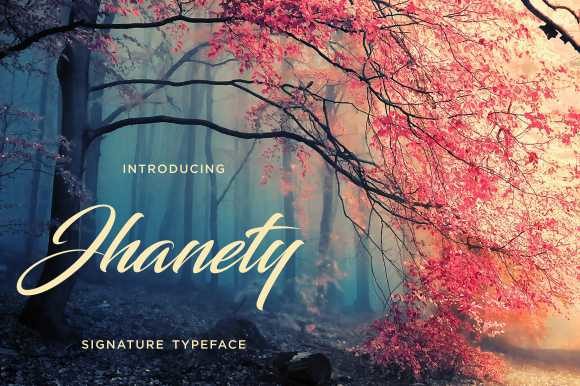
Jhanety Font
About Jhanety Font
The Jhanety is an elegant typeface with an authentic feel. It’s perfect for stationery, logos, branding, modern advertising designs, art quotes, book titles / covers, special events, special mugs, pillows, t-shirts, and much more!